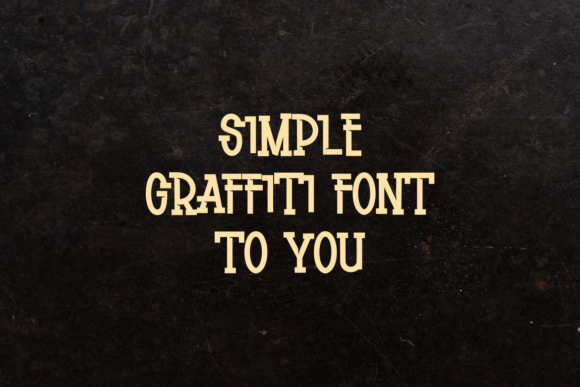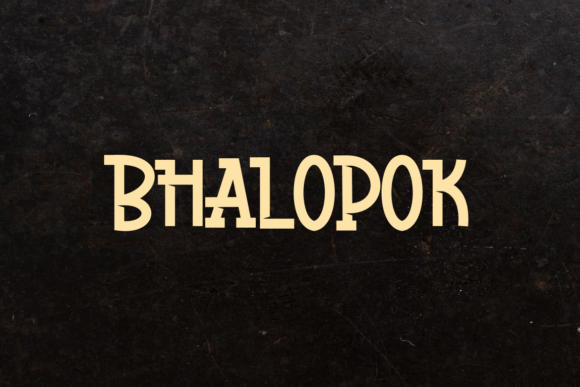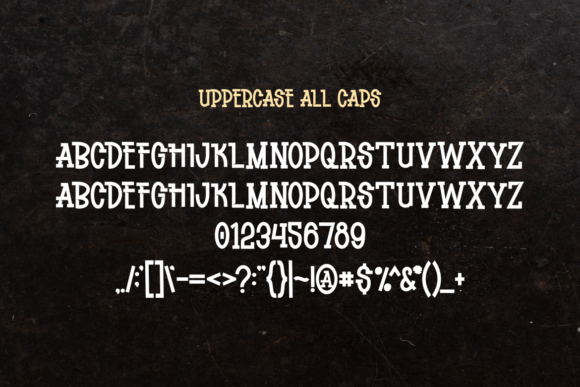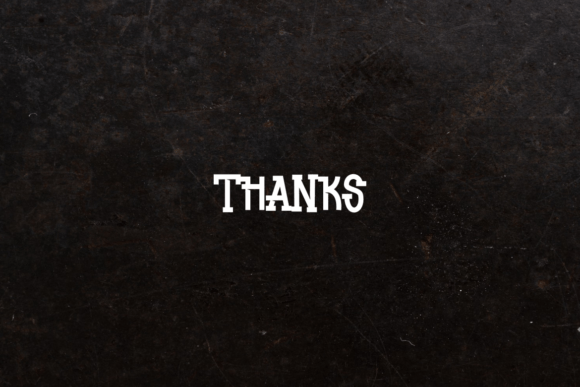
Introduction to Bhalopok Font
Imagine you’re strolling through a vibrant city street, surrounded by bold murals and eclectic street art. The colors are bold, the textures are rough, and the energy is infectious. That’s the kind of vibe you can capture with the Bhalopok Font, a fun and bold graffiti-style font that’s perfect for designers looking to add some personality to their creative projects.
As a designer, you know the importance of having a versatile design resource at your fingertips. The Bhalopok Font delivers, with its edgy, urban feel and high-quality graphics that will elevate your designs to the next level. Whether you’re working on a poster, flyer, or digital project, this font is sure to bring a splash of creativity and style to your work.
Key Features of Bhalopok Font
- One of the unique characteristics of Bhalopok Font is its bold and playful style, making it perfect for adding a creative touch to various design projects.
Honest Review: Bhalopok Font
I recently stumbled upon the Bhalopok Font and I must say, it’s an excellent addition to any design resource collection. The font is perfect for creative projects that require a unique touch.
- ✨ High-quality design: The font’s aesthetic is clean and visually appealing, making it ideal for use in logos, branding materials, and other design elements.
While the Bhalopok Font excels in many areas, there are a few limitations to consider:
- ⚠️ Limited character set: The font’s character set is limited, which may make it less suitable for projects that require a wide range of characters.
- ⚠️ Not suitable for large-scale text: The font’s design may not be ideal for large-scale text, as it may become difficult to read.
Overall, the Bhalopok Font is a high-quality design resource that’s perfect for designers looking to add a unique touch to their creative projects. While it may have some limitations, its free availability and transparent background make it a valuable addition to any design collection.
Bhalopok Font is suitable for various design applications, including logos, business cards, and social media graphics. Its transparent background makes it easy to customize and combine with other design elements.